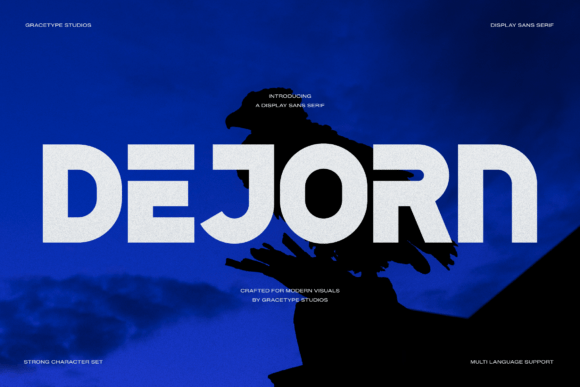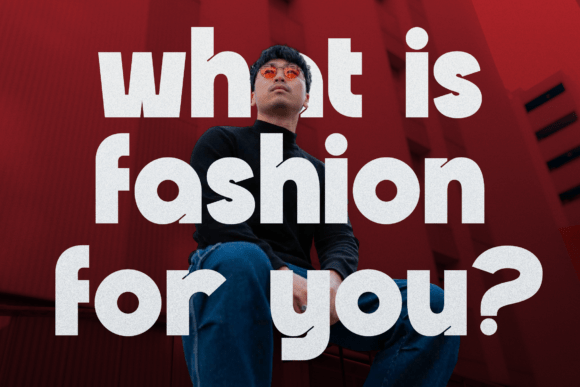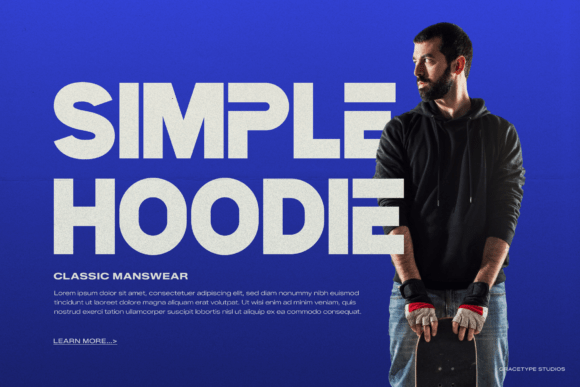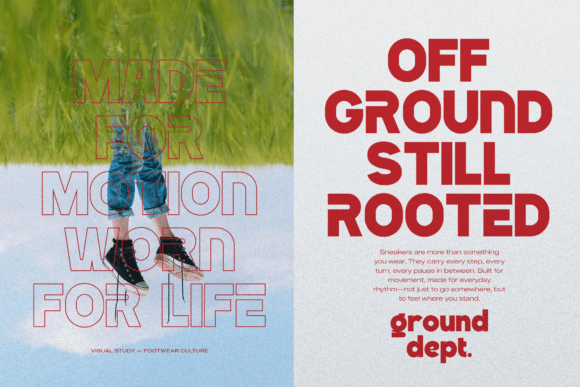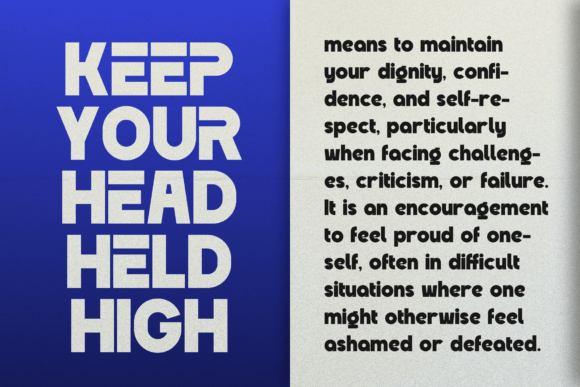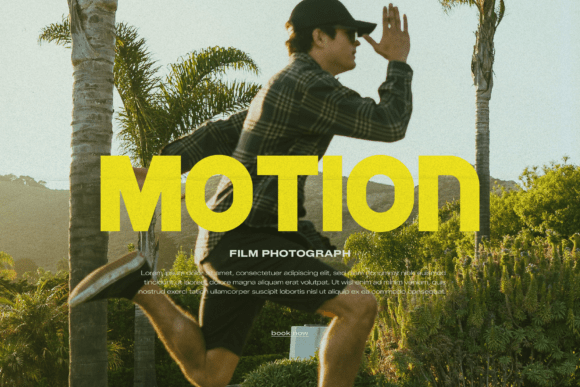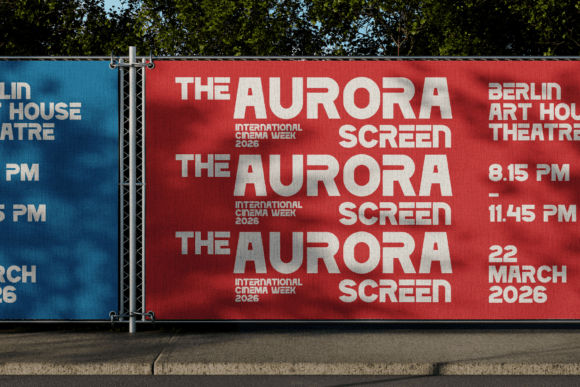
Unleash the Power of Dejorn: A Font for the Fearless
Have you ever been working on a design project, pouring your heart and soul into every detail, only to feel like something’s missing? That’s when the magic happens – you stumble upon the perfect font, and suddenly everything clicks into place. For designers, that moment is often the result of a long search for the right tool to bring their vision to life. Enter the Dejorn Font, a powerhouse display sans serif designed to make a statement.
This font is not for the faint of heart. With its ultra-thick, geometric letterforms and rugged, textured finish, Dejorn Font is the perfect choice for high-octane projects that demand attention and authority. Whether you’re designing for sports branding, cinematic movie posters, or streetwear labels, Dejorn provides a solid foundation that speaks with grit and confidence.
Dejorn Font Key Features
- Font Family: Dejorn is a sans-serif font family designed for digital use.
- Weight and Width Options: Offers 6 weights (Thin, Light, Regular, Medium, Bold, and Black) and 4 widths (Compressed, Normal, Expanded, and Condensed) for versatility in typography.
- Unique Characteristics: Features a geometric, modern design with clean lines and a highly legible structure, making it suitable for digital interfaces, signage, and corporate branding.
Dejorn Font Review
Overall, I’d say Dejorn Font is a decent, modern sans-serif typeface. Here’s what I think works well:
- ✨ Clean and minimalist aesthetic: The font has a sleek, contemporary feel that’s perfect for digital interfaces and modern designs.
- ✨ High legibility: Dejorn is highly readable, even at small font sizes, making it a great choice for body text.
- ✨ Wide language support: The font comes with a broad character set, supporting multiple languages, including Latin, Cyrillic, and Greek.
- ⚠️ Limited personality: Dejorn feels like a safe, unremarkable choice. It’s not particularly distinctive or memorable.
- ⚠️ Not ideal for high-contrast designs: The font’s design can get lost in high-contrast backgrounds, making it harder to read.
Overall, I think Dejorn Font is a solid, dependable choice for everyday use. While it may not be the most exciting or memorable font, it gets the job done. If you’re looking for a clean, modern sans-serif for your next project, Dejorn might be worth considering.
Getting the Most Out of Dejorn Font
To get the most out of Dejorn Font, experiment with different font sizes, styles, and colors to create visually appealing designs. Use Dejorn Font in combination with other fonts to create a unique and cohesive look.
Dejorn Font is commonly used in creative and artistic projects, such as:
- Designing logos and branding materials
- Creating posters and flyers
- Developing website content and landing pages
- Designing social media graphics and ads